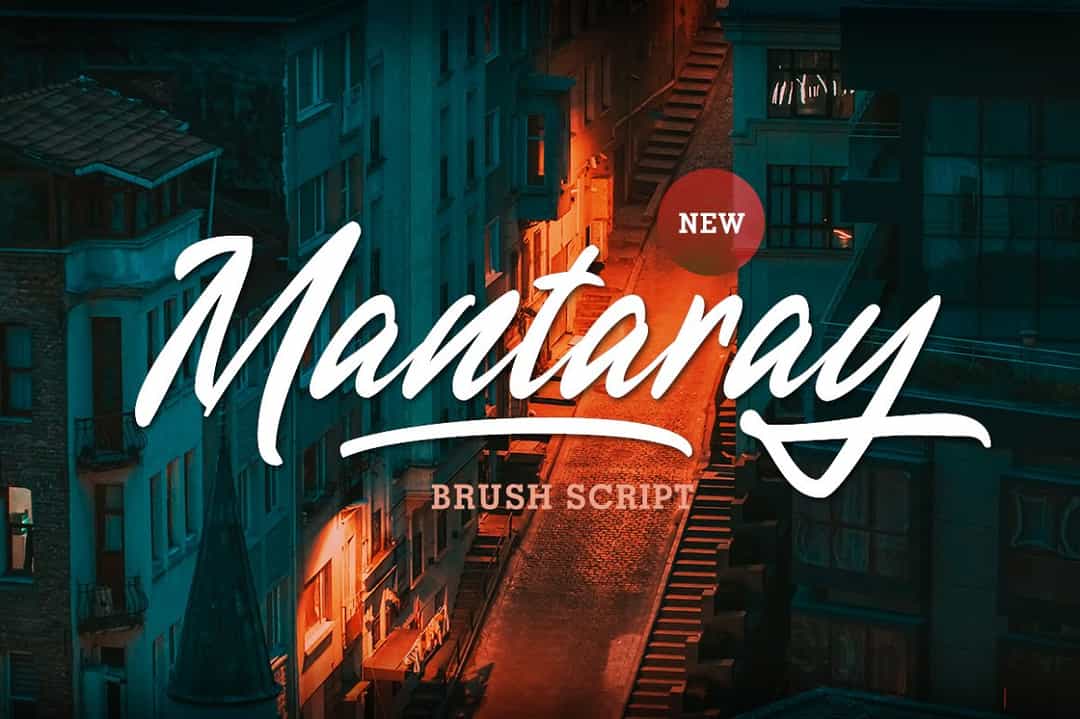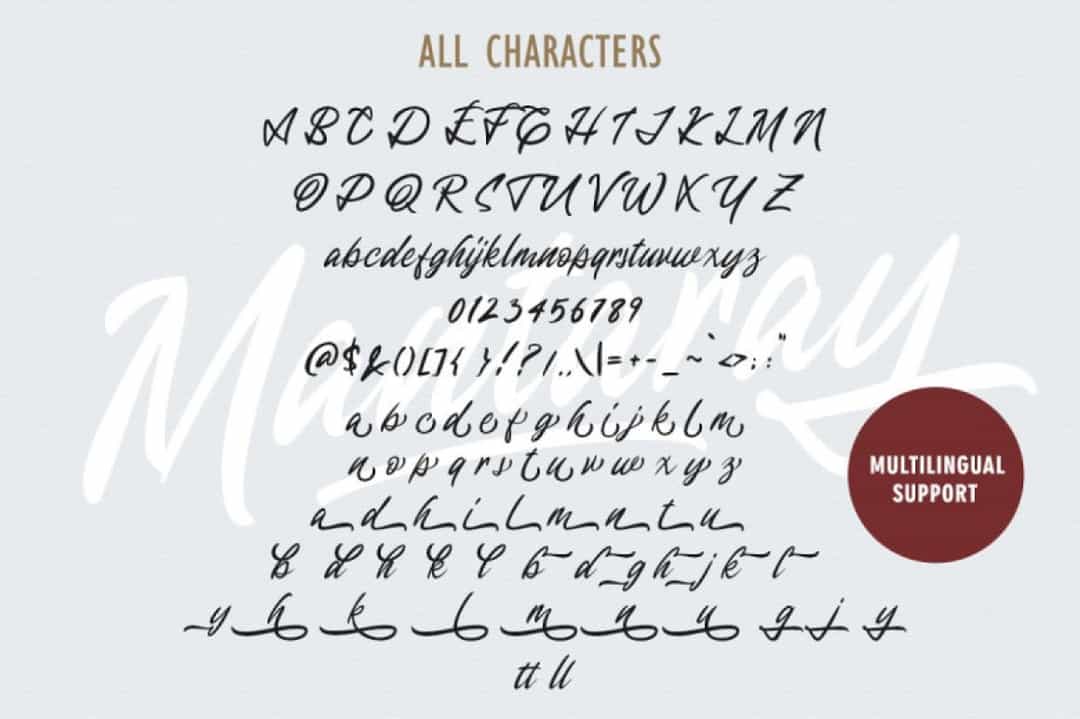
Discover Mantaray Font, part of the Brush collection—a versatile and unique font perfect for adding a personal touch to your projects. Download it for free and enjoy crafting designs with style, from invitations to social media posts. This font is available exclusively for personal use, giving you the freedom to create without limits. Unlock your creativity with Mantaray Font today!
Mantaray is a brush script font specifically created to be used for headlines, displays or logotypes. Additionally, this font can also be utilized in logos and various formal types like invitations and labels used on magazines; wedding or greeting card packaging logos; fashion/makeup advertisements on stationery books/labels as well as any other advertising purposes.